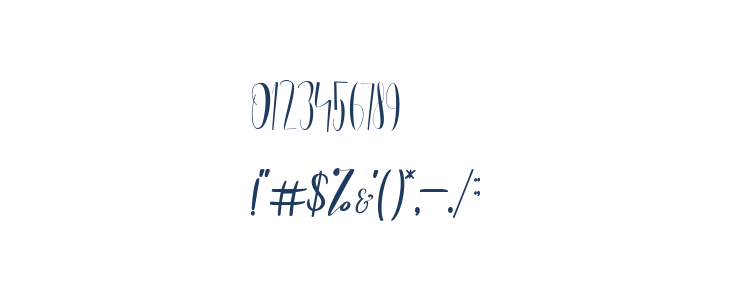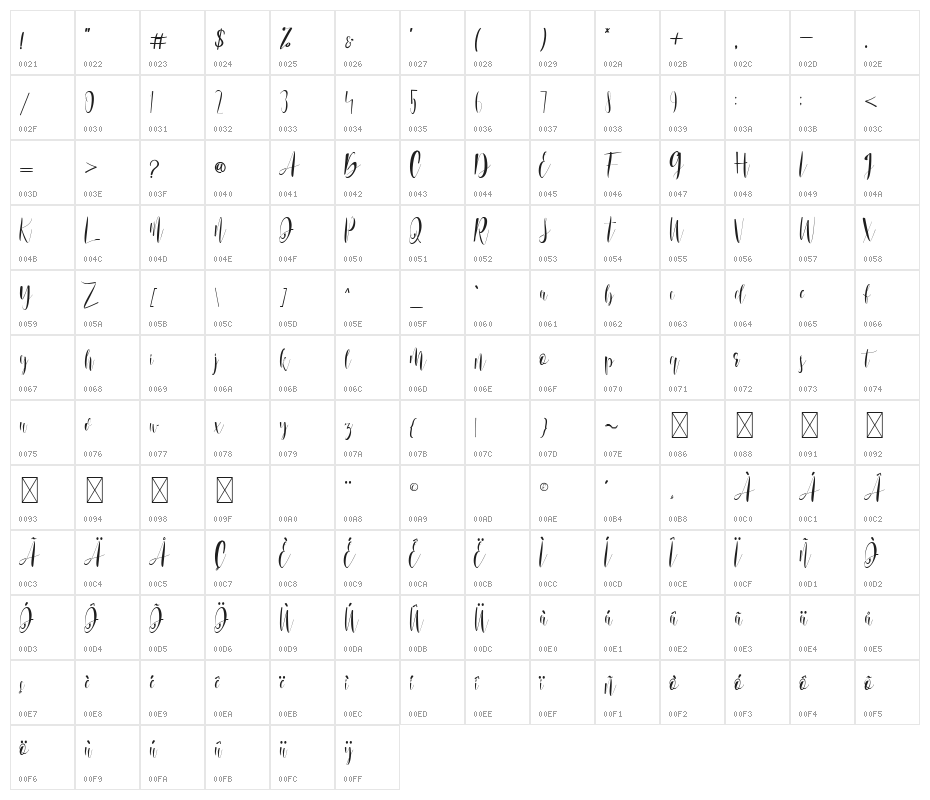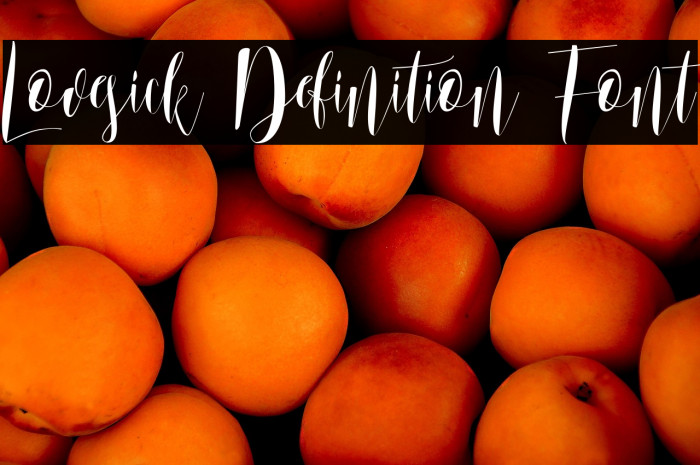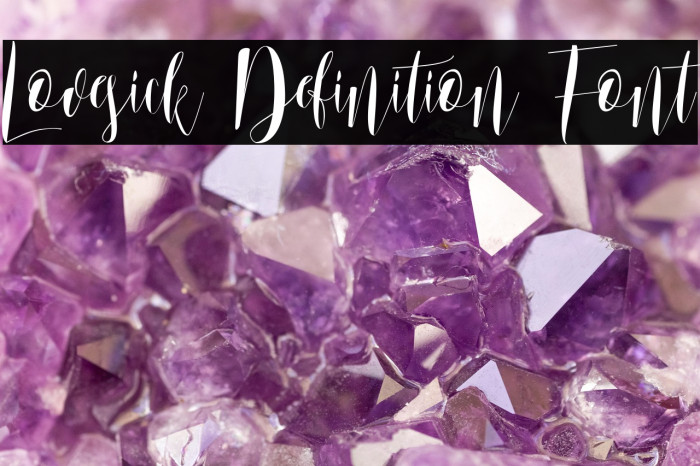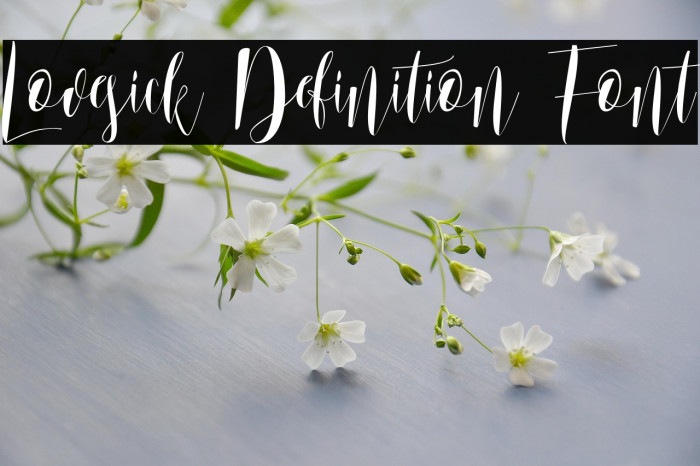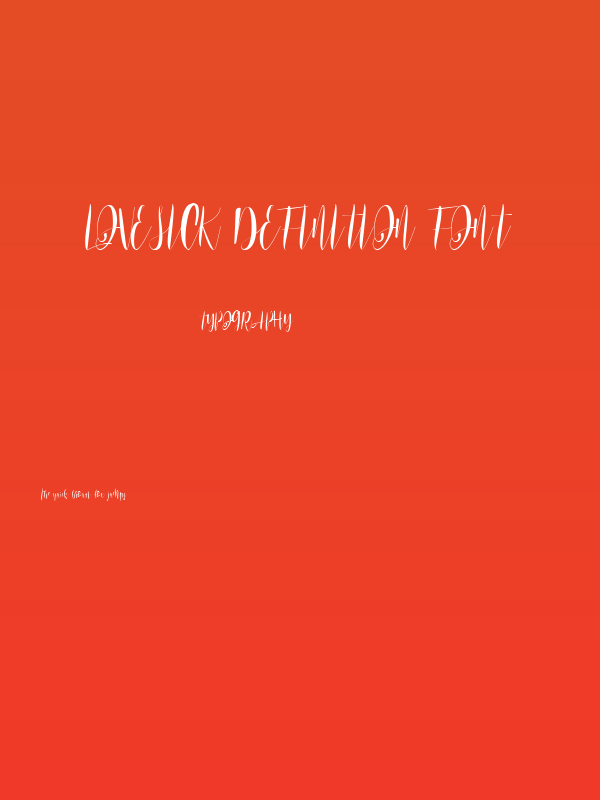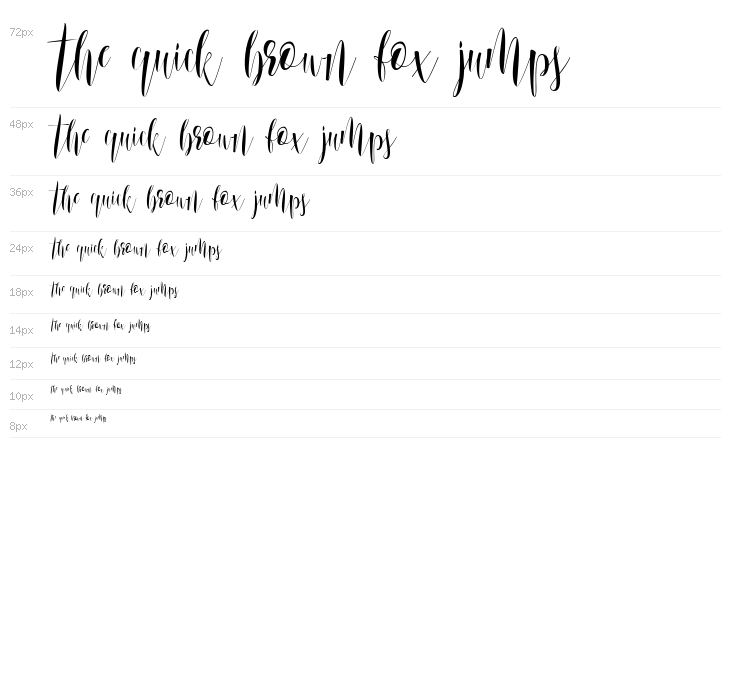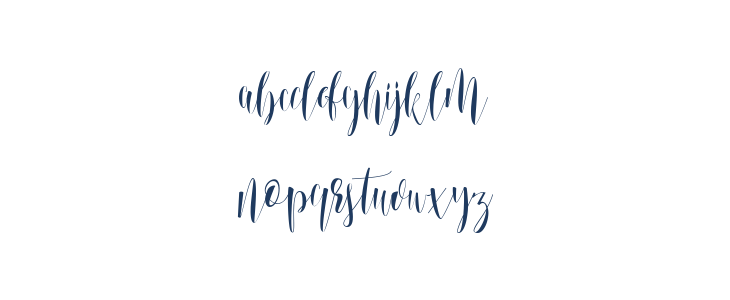
Lovesick Definition Font Font
Lovesick Definition Font Description
This font features an elegant and flowing script style, characterized by its sweeping curves and fluid strokes. The uppercase letters are bold and dramatic, with a distinct flair that adds a touch of sophistication. The lowercase letters maintain a consistent flow, creating a harmonious balance between each character. Numbers and special characters are designed with the same attention to detail, ensuring a cohesive look across all elements. This font exudes a sense of romance and creativity, making it ideal for projects that require a personal and artistic touch.
Proposed ProjectsIdeal for wedding invitations, greeting cards, branding projects, and any design that requires a personal and artistic touch.